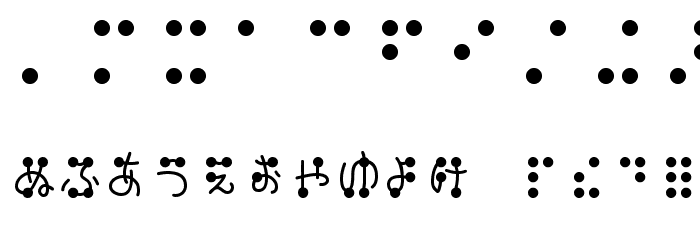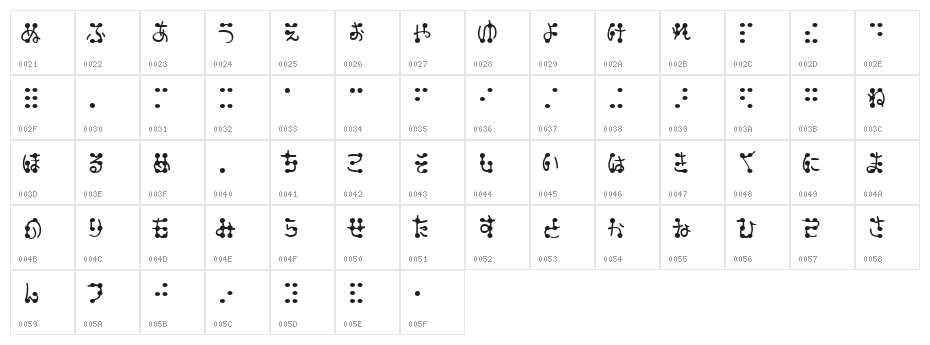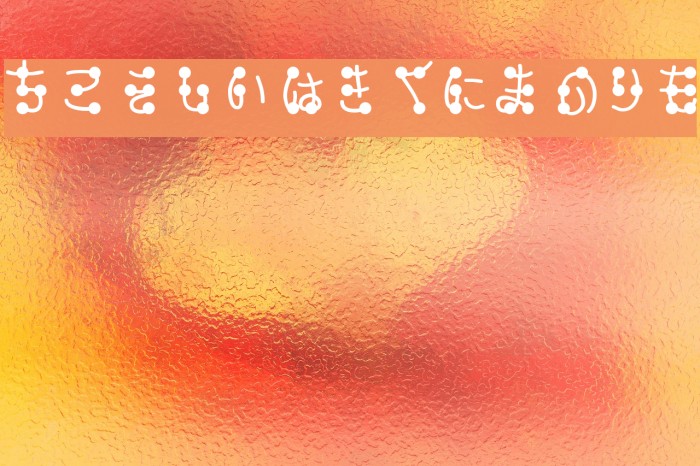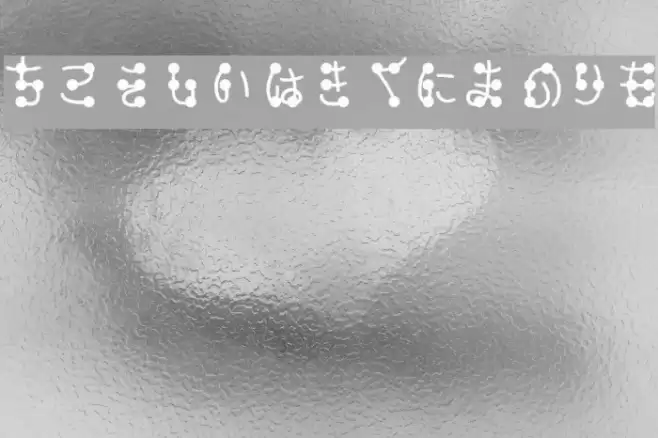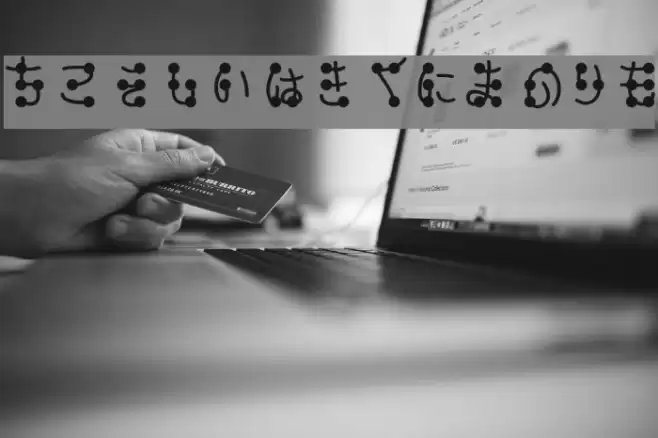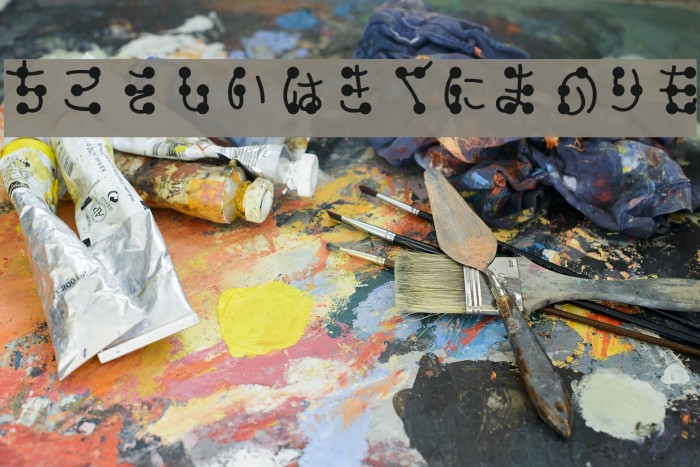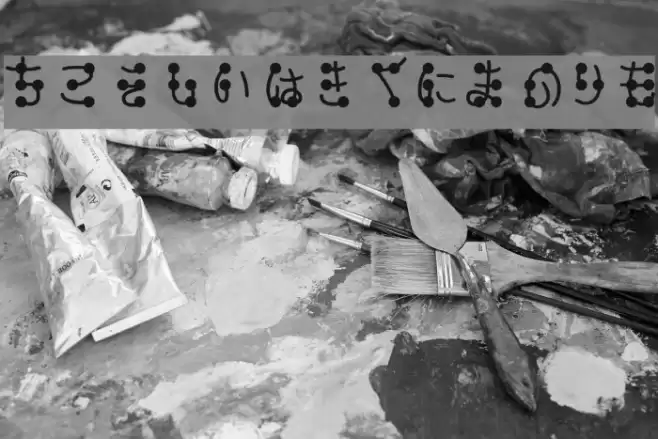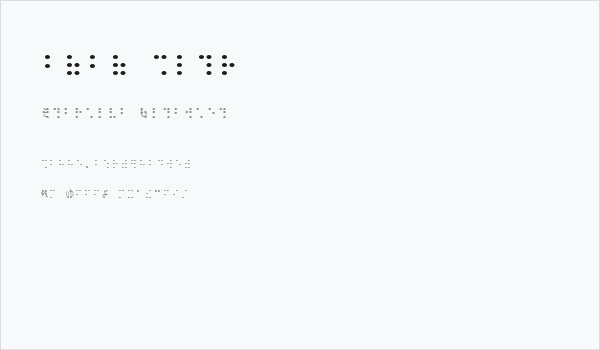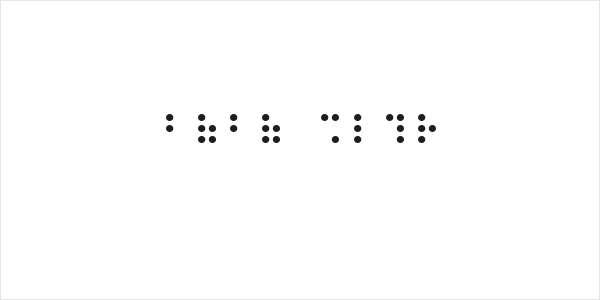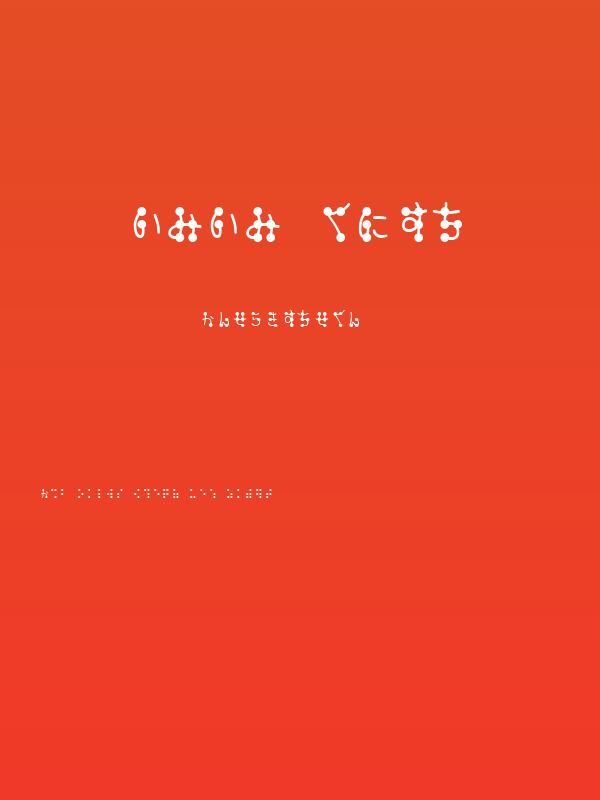
enen hira Font
enen hira Description
This font is a unique representation of Japanese Hiragana characters combined with Braille dots. Each character is creatively designed to integrate Braille patterns, making it both visually intriguing and functional for tactile reading. The design maintains the traditional curves of Hiragana while incorporating the dot patterns seamlessly. This dual-purpose design is ideal for educational purposes, particularly in teaching environments where both visual and tactile learning are emphasized. The font's playful yet practical nature makes it suitable for projects aimed at inclusivity and accessibility.
| Use Case | Educational materials, accessibility projects, inclusive design. |
| Proposed Projects | Ideal for educational materials, inclusive design projects, and accessibility-focused publications. |